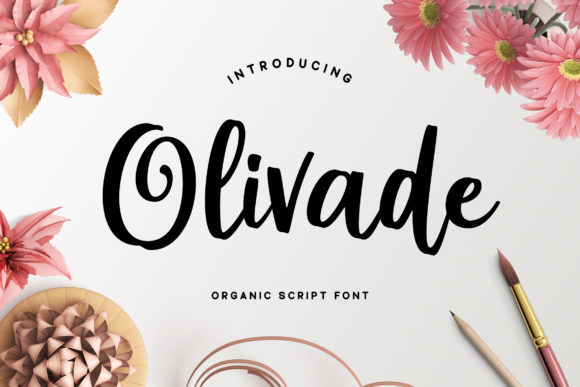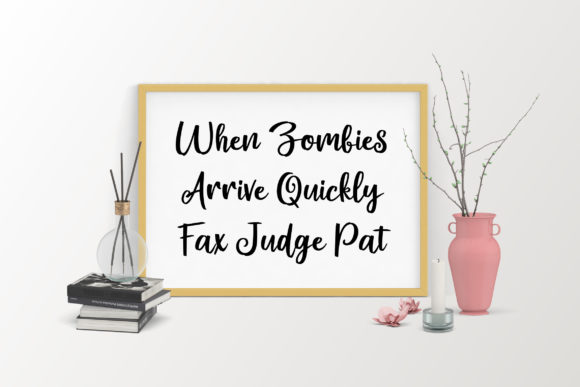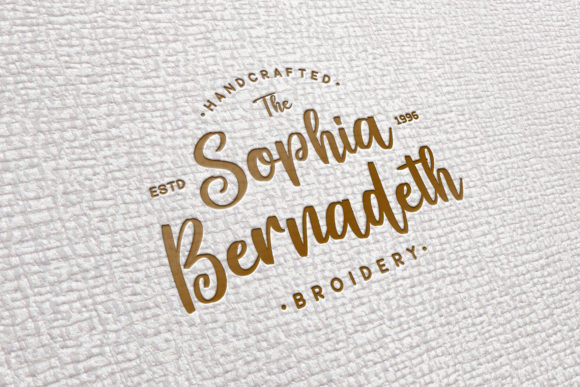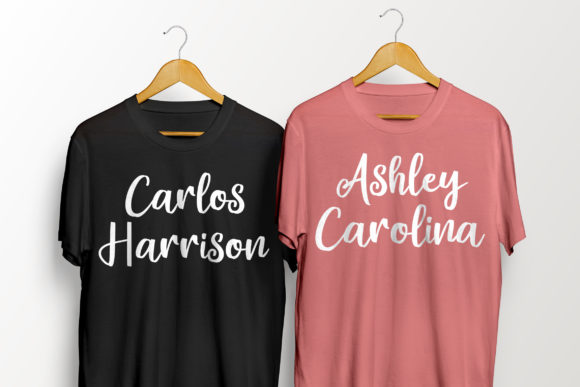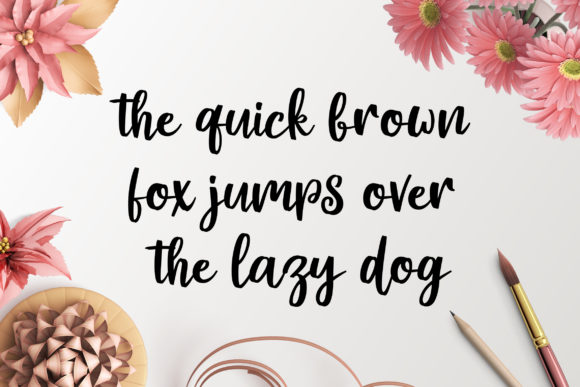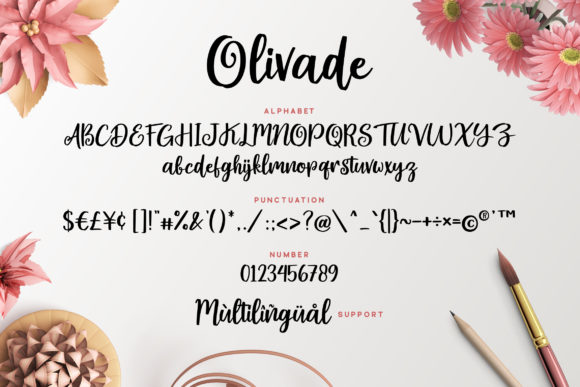
HomeScript FontsOlivade Font Script Fonts Olivade Font FacebookXPinterestWhatsApp Olivade Font Poster 2 Olivade Font Poster 3 Olivade Font Poster 4 Olivade Font Poster 5 Olivade Font Poster 6 About Olivade Font Olivade is a fresh and organic script font with a cool feel. DOWNLOAD ON CREATIVE FABRICAThis font is sold and delivered by Creative Fabrica. Font Canyon may earn a commission if you buy through this link. People also explored Garden Font Staycation Font Sharpless Font Lakeisha Font Perfume Font Aline Font Valentine Midnight Font Mens Canvas Red Bella Canvas 3001 Mockup Qunanty Font 326 0 TagsOlivade Font Previous articleDiane Amorta FontNext articleAudrey Tatum Font LEAVE A REPLY Cancel reply Comment: Please enter your comment! Name:* Please enter your name here Email:* You have entered an incorrect email address! Please enter your email address here Website: Save my name, email, and website in this browser for the next time I comment. Personal Use Free Retro Free Personal Use Free Read more about this font Love Baby Personal Use Free Read more about this font Multicolore Personal Use Free Read more about this font Maharany Personal Use Free Read more about this font BLOG Elegant Wedding Invitation Fonts – Handwritten & Script Fonts Elegant Wedding Invitation Fonts Your wedding day is one of the most important moments of your life, and every detail matters—including your invitation design. Our... 5 Fonts That Will Dominate Design Trends in 2026 How to Install and Use Fonts on Windows, macOS, and Web Projects How to Cut Any Font on Cricut: Convert a Font to SVG (Free)